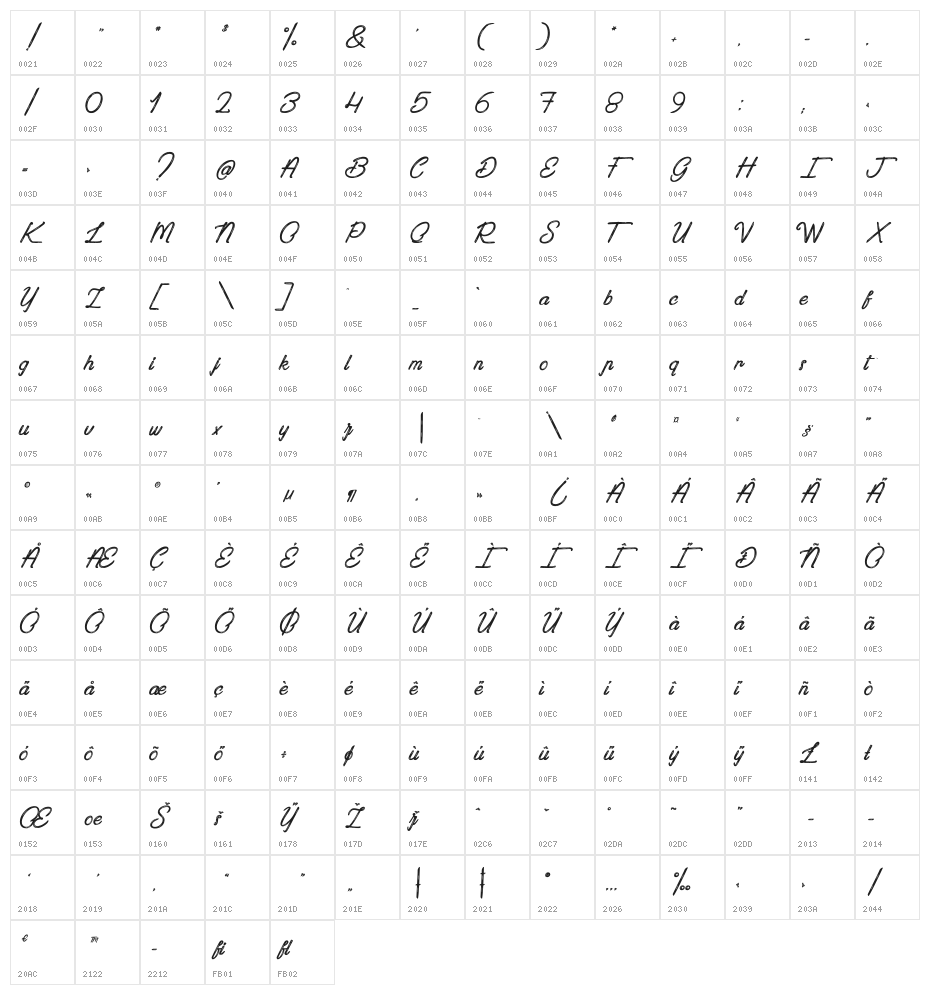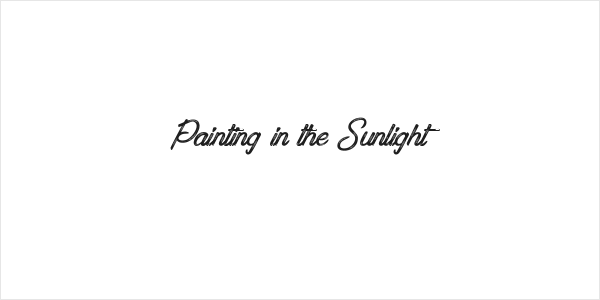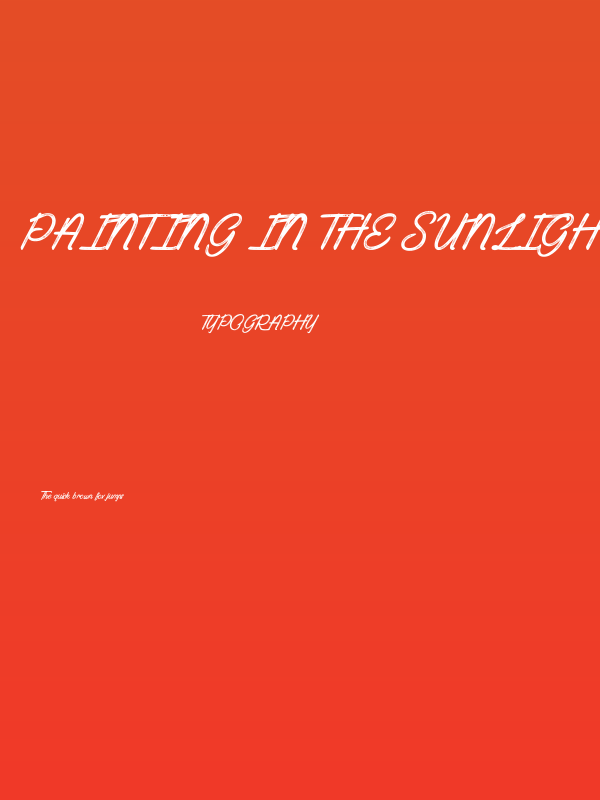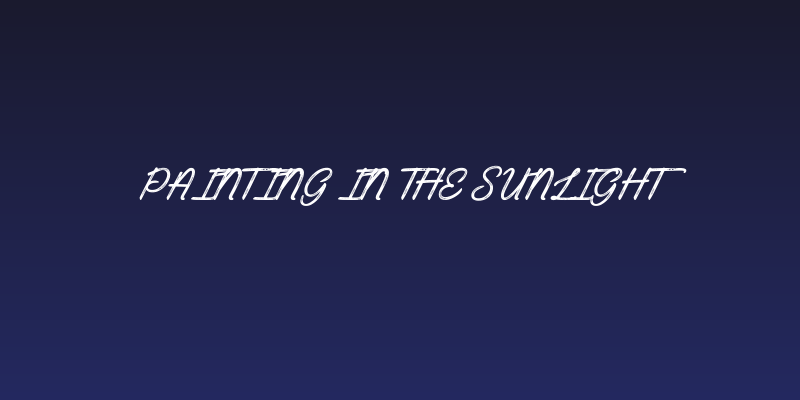
Painting in the Sunlight Font
Painting in the Sunlight Description
This font exhibits a dynamic and flowing script style, characterized by its elegant and cursive letterforms. The uppercase letters are bold and slightly slanted, giving a sense of movement and grace. The lowercase letters maintain a consistent flow, with smooth connections between each character, enhancing readability while preserving a handwritten aesthetic. The numerals are distinct and maintain the same cursive style, ensuring uniformity across all characters. Special characters are thoughtfully designed to match the overall script theme, making them suitable for decorative purposes. The font's playful yet sophisticated appearance makes it ideal for creative projects that require a personal touch.